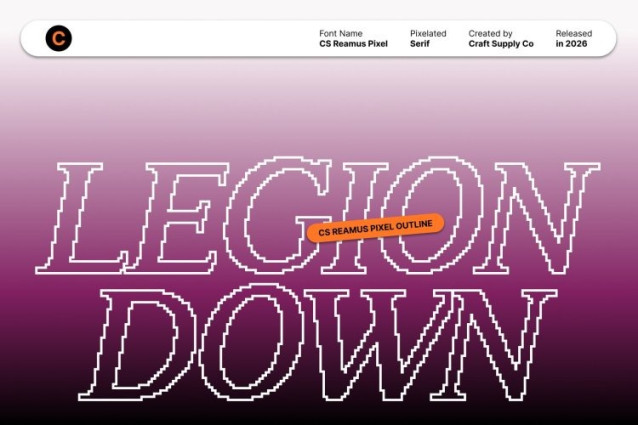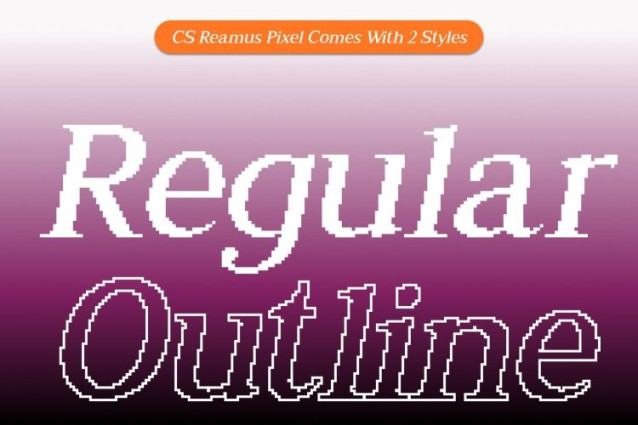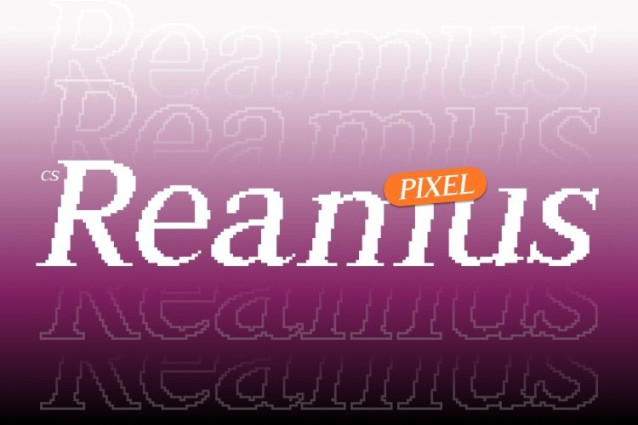
CS Reamus Pixel Font
CS Reamus Pixel Font This is a modern serif font defined by its minimal yet stylish design, reinterpreted through a distinctive pixel aesthetic. It embraces simplicity while maintaining an air of sophistication, blending contemporary elegance with digital nostalgia. Each letterform is carefully shaped to exude clarity, professionalism, and understated beauty now enhanced by a pixel structure that adds character and visual intrigue.
Clean Lines with Professional Character
The font’s precise geometry and subtle serif details communicate confidence and refinement, while the pixel construction introduces a sharp, eye-catching texture. This combination creates a unique balance between polished elegance and digital precision, making the font ideal for projects that require a refined tone with a modern–tech or retro-digital twist.
Perfect for Editorial, Branding, and Digital Applications
Designed to perform beautifully across both print and digital media, this font elevates editorials, brand identities, and creative visuals with ease. Its pixel style makes it especially striking in digital interfaces, tech-inspired branding, retro-themed visuals, and old-technology aesthetics, while still adapting seamlessly to logos, magazine titles, posters, and marketing materials.
Timeless Sophistication with a Digital Soul
More than just a serif font, this font is a statement of refined design fused with pixel-era charm. By combining minimalism, graceful serif forms, and a structured pixel look, it delivers typography that feels both nostalgic and forward-thinking. Whether used in bold headlines or subtle branding accents, it offers elegance that stands out in modern digital and retro-tech environments.